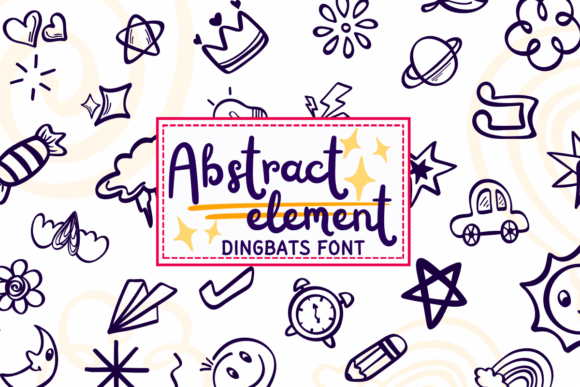
Abstract Element Font: Add a Touch of Whimsy to Your Designs
Are you looking for a unique and playful font to add to your design projects? Look no further than the Abstract Element Font, a cute dingbats font that’s perfect for festive and creative designs. In this article, we’ll explore the features and benefits of Abstract Element Font, and show you how to incorporate it into your designs for amazing results.
What is Abstract Element Font?
Abstract Element Font is a dingbats font that features a collection of abstract shapes and symbols, including geometric patterns, arrows, and other creative elements. The font is designed to be highly versatile and can be used for a wide range of design projects, from holiday cards and invitations to social media graphics and website headers.
One of the standout features of Abstract Element Font is its playful and whimsical style. The font is perfect for designers who want to add a touch of personality and fun to their designs. Whether you’re creating a festive holiday design or a more abstract and artistic project, Abstract Element Font is sure to inspire your creativity.
Key Features of Abstract Element Font
- Cute and playful design: Abstract Element Font features a unique and adorable design that’s perfect for festive and creative projects.
- Highly versatile: The font can be used for a wide range of design projects, from holiday cards and invitations to social media graphics and website headers.
- Easy to use: Abstract Element Font is a dingbats font, which means it’s easy to use and can be accessed via your keyboard.
- Scalable: The font is highly scalable, making it perfect for use in both print and digital designs.
How to Use Abstract Element Font in Your Designs
Using Abstract Element Font in your designs is easy. Here are a few tips to get you started:
- Pair it with a bold font: Abstract Element Font works well when paired with a bold font. Try pairing it with a sans-serif font like Arial or Helvetica for a fun and modern look.
- Use it for headings and titles: Abstract Element Font is perfect for use in headings and titles. Try using it to add a touch of whimsy to your blog posts, social media graphics, and website headers.
- Add it to your holiday designs: Abstract Element Font is perfect for holiday designs. Try using it to create festive holiday cards, invitations, and social media graphics.
Tips and Tricks for Getting the Most Out of Abstract Element Font
Here are a few tips and tricks for getting the most out of Abstract Element Font:
- Experiment with different colors: Abstract Element Font looks great in a variety of colors. Try experimenting with different colors to find the perfect look for your design.
- Use it in combination with other fonts: Abstract Element Font works well when used in combination with other fonts. Try pairing it with a script font or a serif font for a unique and interesting look.
- Don’t be afraid to get creative: Abstract Element Font is a versatile font that can be used in a wide range of designs. Don’t be afraid to get creative and try new things.
Abstract Element Font: The Perfect Addition to Your Festive Designs
Abstract Element Font is the perfect addition to your festive designs. Whether you’re creating holiday cards, invitations, or social media graphics, this font is sure to add a touch of whimsy and fun to your designs.
So why not give Abstract Element Font a try? With its cute and playful design, highly versatile style, and ease of use, it’s the perfect font for designers who want to add a little something extra to their designs.
In conclusion, Abstract Element Font is a unique and versatile font that’s perfect for designers who want to add a touch of whimsy and fun to their designs. With its cute and playful design, highly versatile style, and ease of use, it’s the perfect addition to your festive and creative projects.